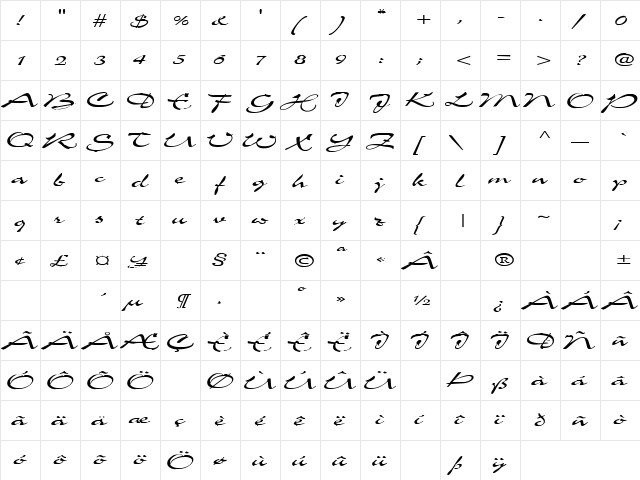
Legal Fees 2 Regular
Design Context for Legal Fees 2 Typeface
Legal Fees 2 takes a measured approach to typography — its balanced proportions and neutral character make it a reliable workhorse for both digital and print work.